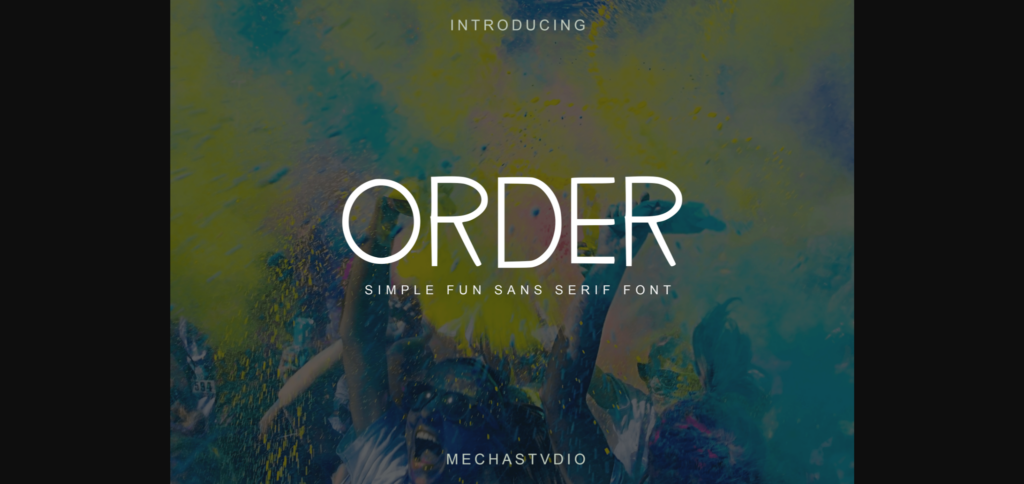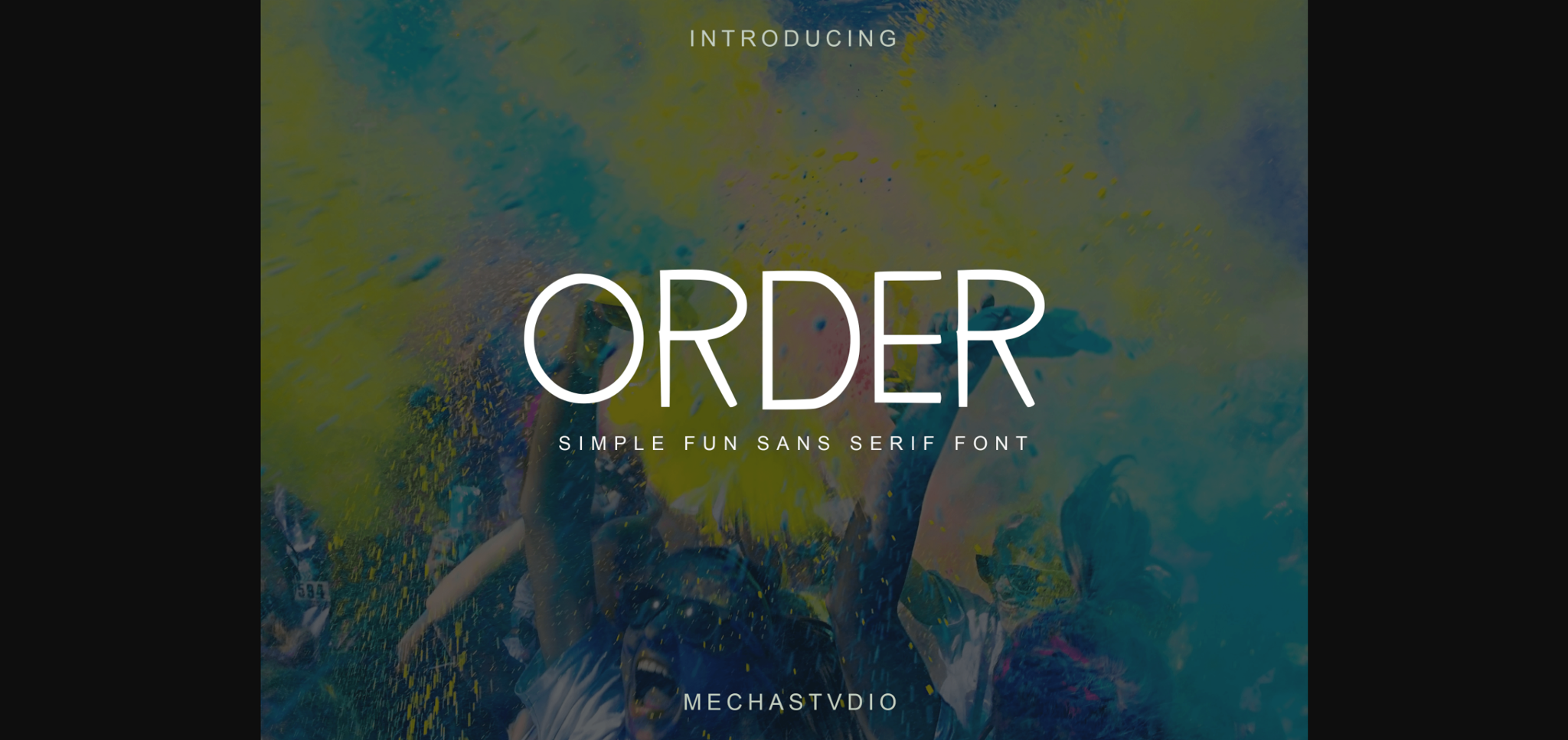
Order Font
About Order Font
Order is a modern, simple, and unique sans-serif font. Its unique style is perfect for all your projects as it has the potential to transform them into true standouts.